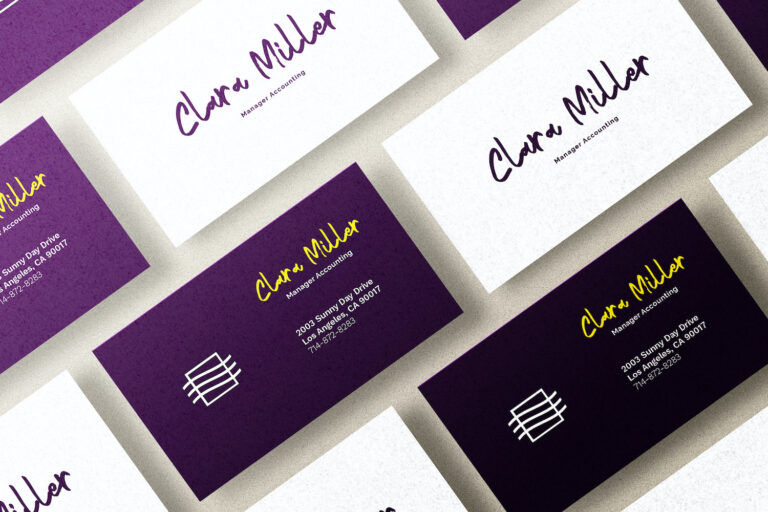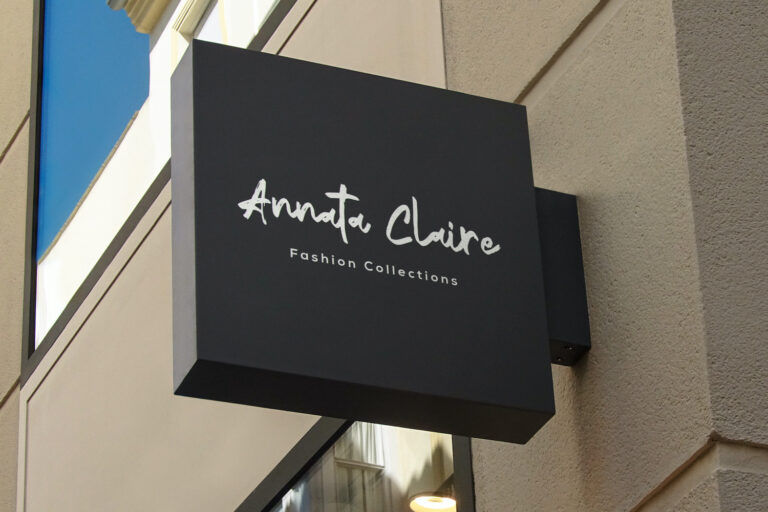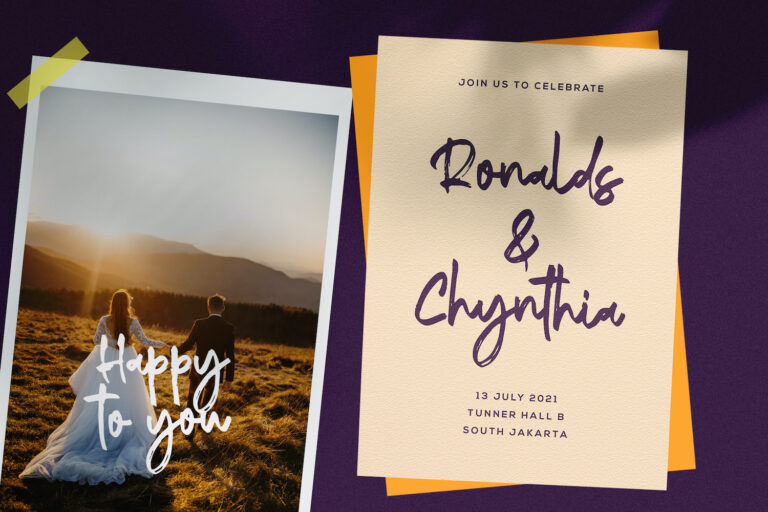
Reginy is a brush-style font that prioritizes attitude and mood—designed to make your words feel personal, expressive, and alive. This font is best used when you want typography that feels like a real handwritten gesture, not perfectly polished type.
Reginy brings a confident and natural rhythm: bold starting strokes, smooth curves, and natural brush pressure that gives each letter a living pulse. Long strokes and slightly textured edges create a signature-like impression.
Emotionally, this font carries a blend of warm spontaneity and confidence. It feels energetic and youthful for lifestyle visuals (skateboarding, street culture, travel content), yet also becomes romantic and intimate when placed in clean and minimalist layouts (invitations, quotes, boutique branding). Reginy suits character-driven brands—creative studios, cafés, fashion labels, handmade products, individual creators, and modern boutique businesses that want to look bold and slightly artistic. In terms of vibe, this font tends to be cheerful and informal, with a soft modern feminine tendency thanks to its writing style—yet it remains unisex when paired with strong layouts, neutral colors, and sans-serif supporting fonts. This font is not designed for strict corporate formality or dense body text, but it is excellent for names, titles, packaging accents, and signature-style logos.